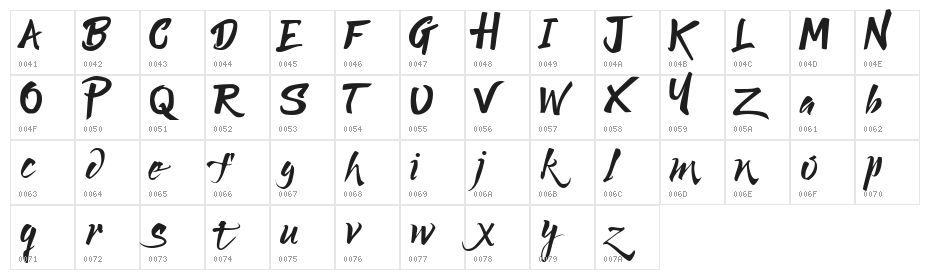
Lucky Dream Demo Font
This font features a bold and expressive script style, characterized by its dynamic and flowing letterforms. The uppercase letters are bold and slightly slanted, giving a sense of movement and energy. The lowercase letters maintain a consistent style, with smooth curves and a handwritten feel. The overall design is modern and artistic, making it suitable for creative projects. The font's strokes vary in thickness, adding a sense of depth and texture. It captures attention with its unique and stylish appearance, perfect for making a statement in any design.
| Proposed Projects | Ideal for branding, logos, invitations, and artistic posters. |